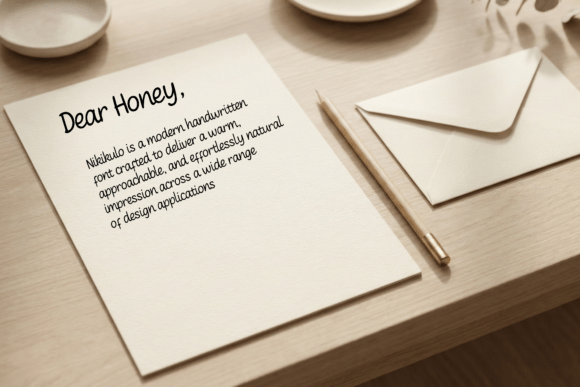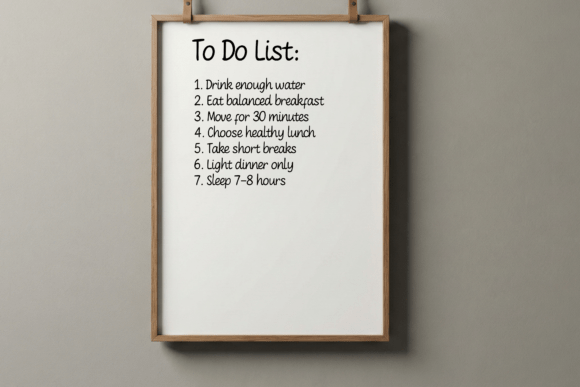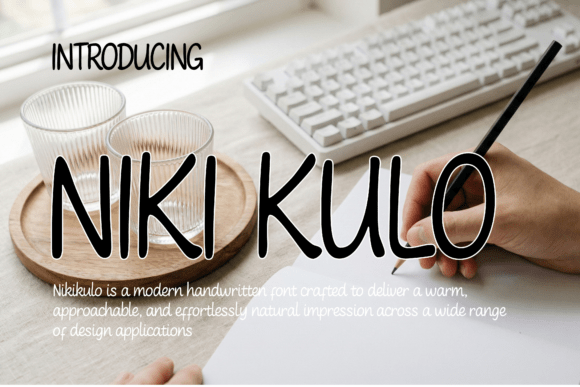
Introduction to Niki Kulo Font
Present your work with the warm, effortless charm of the Niki Kulo font, a modern handwritten display typeface that delivers a natural, approachable impression across a wide range of design applications.
The Niki Kulo font features bold, friendly strokes and an organic, slightly rounded aesthetic that captures the look of genuine, relaxed handwriting With its excellent readability, even at display sizes, this font is incredibly versatile for a wide array of applications, maintaining clarity and modern style.